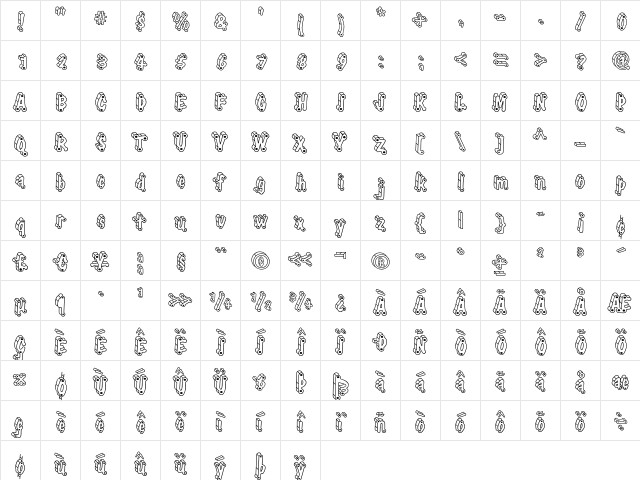
ElliottsTyphpoidMThrDLight Regular
Design Context for ElliottsTyphpoidMThrDLight Typeface
ElliottsTyphpoidMThrDLight is a composed and adaptable typeface that performs quietly and consistently across a wide range of design contexts. The delicate stroke weight brings airiness and refinement to layouts.